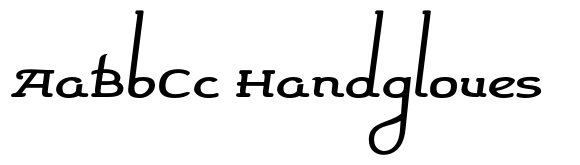
The Sabinard Font Family was designed by Paul James Lloyd and published by Greater Albion Typefounders. Sabinard contains 1 styles.
Sabinard offers a distinctive form of 'Swash' lettering. It is excellent for poster work, or for headings and titles. Its distinguishing feature is the combination of long ascenders and descenders with a small cap height. It has been designed to compliment Greater Albion's Sabio, but also works splendidly as a 'feature' type alongside any Roman Face.